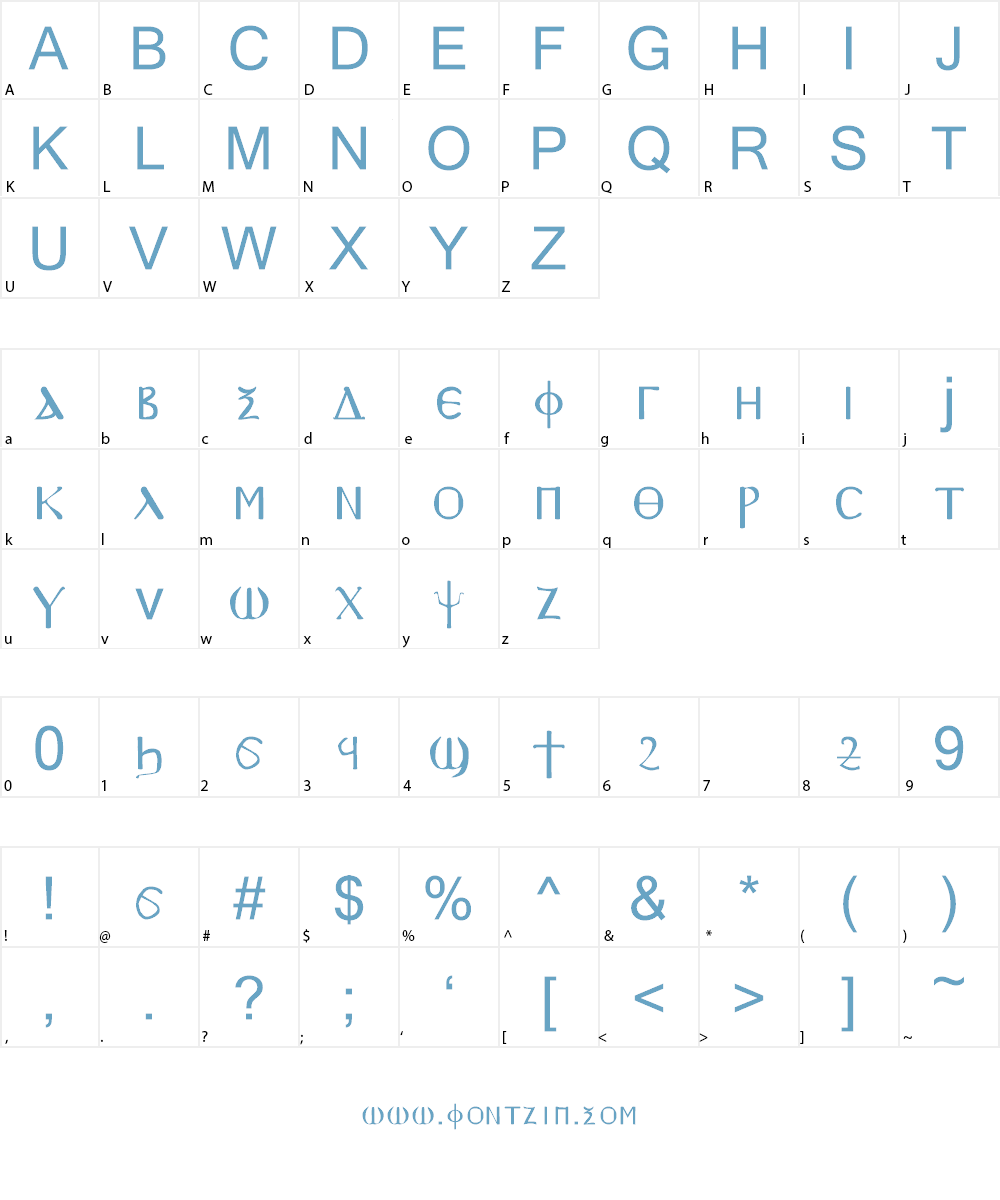
The font is designed to follow the Thesaurus Linguae Graecae encoding scheme to as great an extent as possible, with extra characters added that are not
present in Greek (see http://purl.org/TC/TC-translit.html#Coptic ). In addition to the
standard Sahidic characters, three forms of the Bohairic/Achmimic chai (corresponding to the variant forms
of the glyph) are included. The composite character ti and the supralinear stroke are also included.